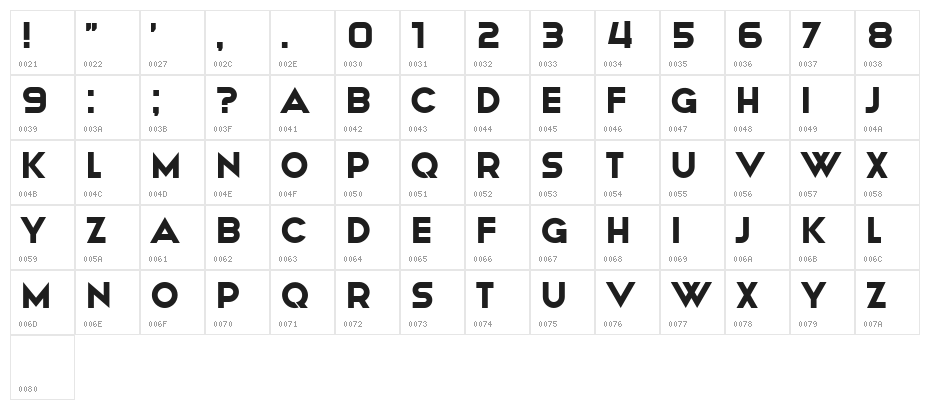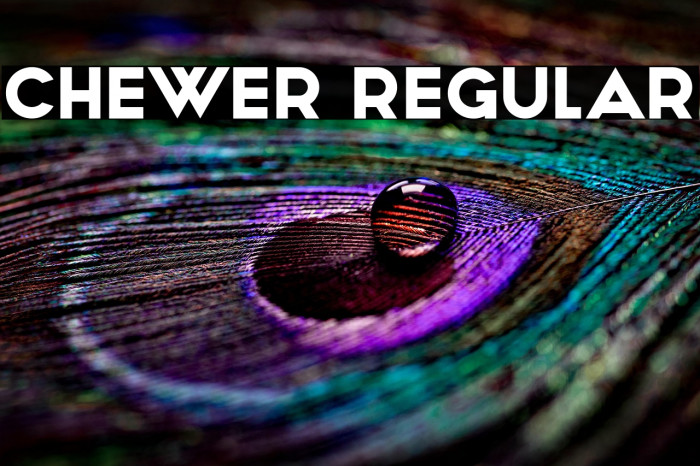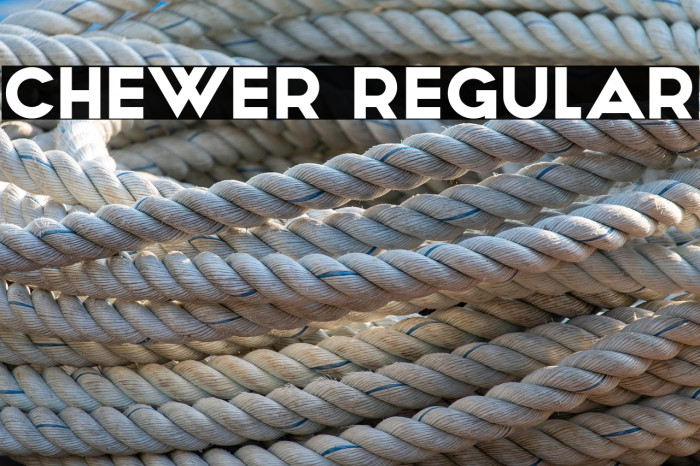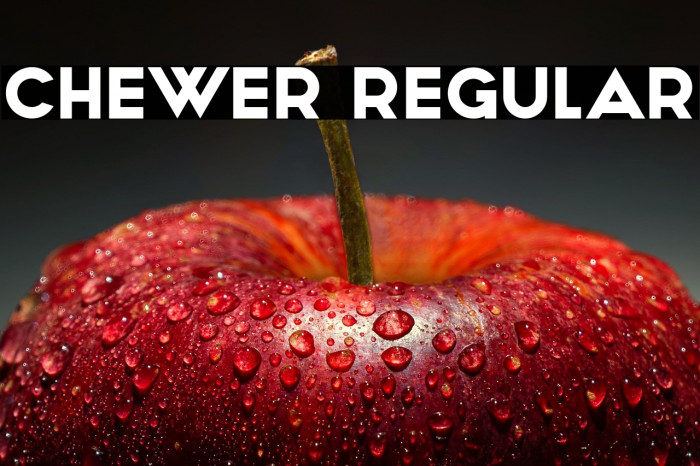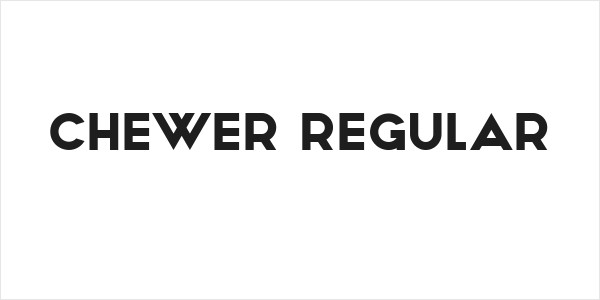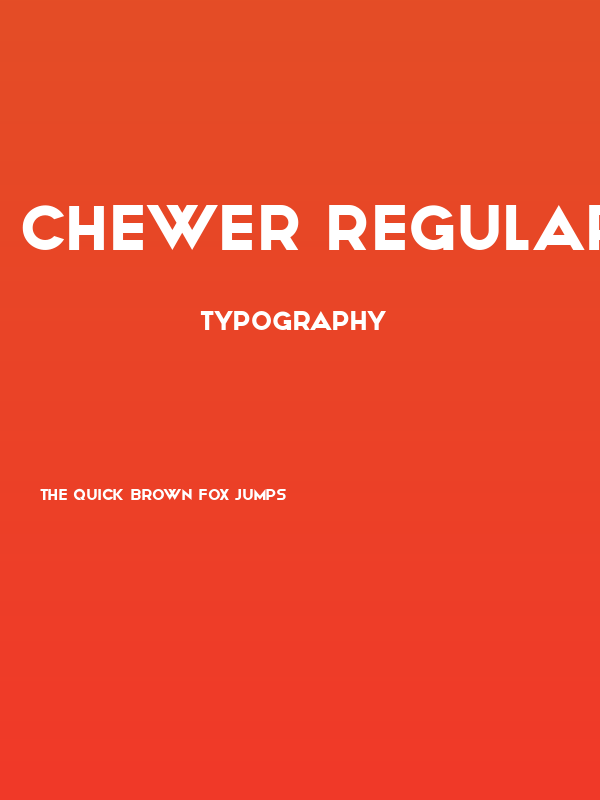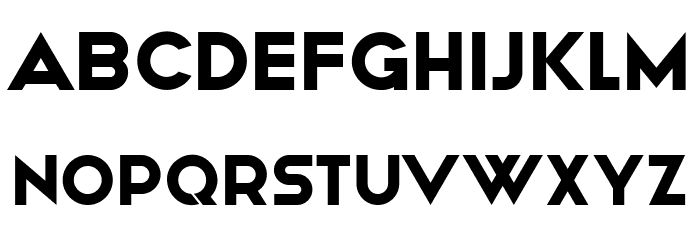
Chewer Regular Font
Chewer Regular Description
This font features a bold and geometric design, characterized by its strong, angular lines and uniform stroke width. The uppercase letters are particularly striking, with a modern and assertive appearance that commands attention. The numerals and special characters maintain the same boldness, ensuring consistency across all text elements. Its clean and structured form makes it highly legible, even at smaller sizes, while the lack of serifs gives it a contemporary feel. This font is versatile, suitable for a wide range of applications where a strong visual impact is desired.
| Proposed Projects | Ideal for branding, advertising, headlines, posters, and digital media where a bold statement is needed. |